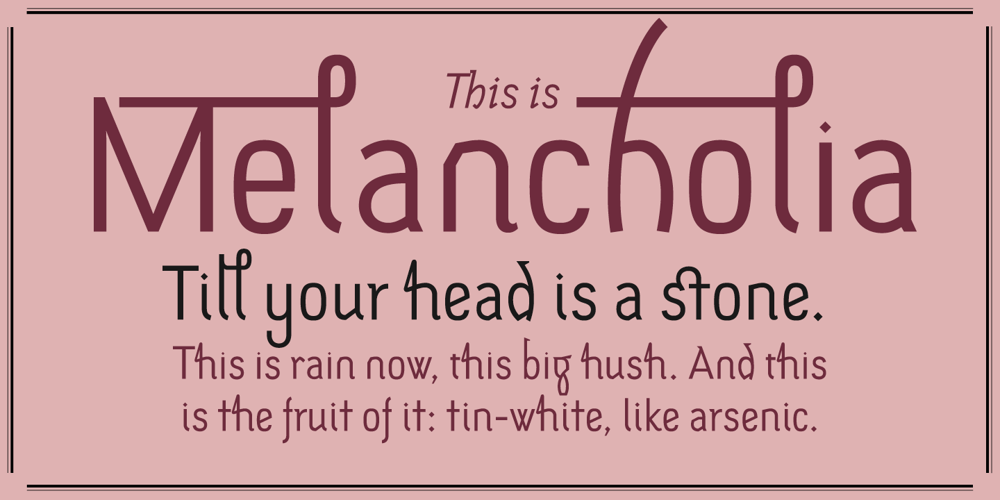
Melancholia Font Family was designed by Marcus Leis Allion, Jonathan Barnbrook and published by Barnbrook Fonts. Melancholia contains 2 styles and family package options. Melancholia is a subtle and beautiful sans-serif inspired by calligraphic letterforms. The name describes a feeling of deep sadness, an intense sensitivity to the world. The design of Melancholia is an attempt to introduce some of that wistfulness into the sans-serif form, a typographic classification that is often characterised by an austere functionality. Melancholia includes a set of true italics influenced by old-style serif italics, such as those found in Claude Garamond’s eponymous typeface, as well as a set of stylistic alternates and calligraphic-style swash characters.